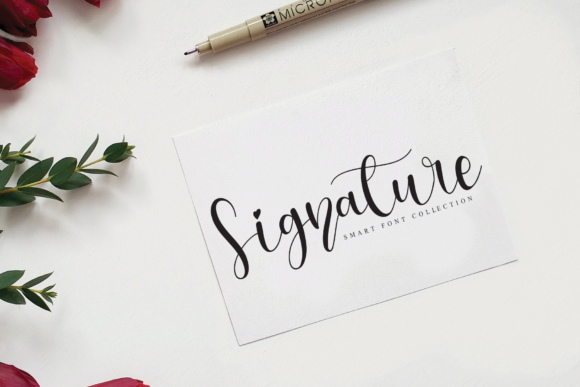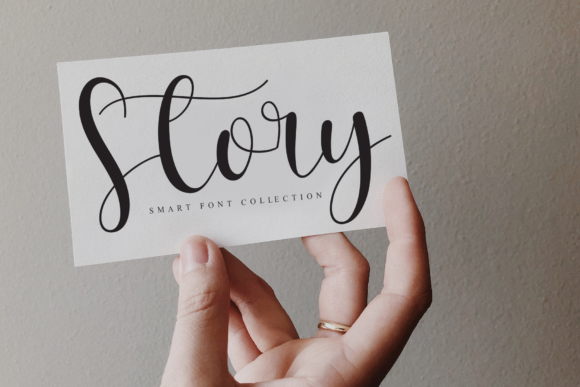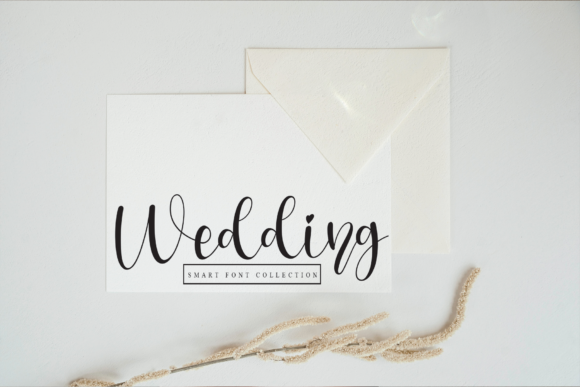
Introducing Anything Font: A Chic and Whimsical Handwritten Font
Are you tired of using the same old fonts in your designs? Look no further than Anything Font, a modern and unique handwritten font that’s sure to add a touch of magic to your creations. With its chic and whimsical style, Anything Font is perfect for designers and crafters looking to add a little something extra to their work.
A Modern and Unique Style
Anything Font is a one-of-a-kind font that’s sure to make your designs stand out. Its modern and unique style is perfect for a variety of projects, from wedding invitations and branding materials to social media graphics and more. The font’s clean lines and delicate curves give it a sophisticated look that’s both elegant and playful.
Immerse Your Designs in a Magical World
With Anything Font, you can transport your designs to a magical world of wonder and enchantment. The font’s whimsical style is perfect for creating designs that are both fun and sophisticated, making it ideal for projects that require a touch of personality and flair. Whether you’re designing for a children’s brand, a fashion label, or a lifestyle company, Anything Font is sure to add a touch of magic to your creations.
Anything Font is a versatile font that’s perfect for designers and crafters of all levels. Whether you’re a professional designer or a DIY crafter, this font is easy to use and adaptable to a variety of projects. With its wide range of applications, Anything Font is sure to become a go-to font in your design arsenal.
Key Features of Anything Font
- Modern and unique style: Anything Font has a fresh and contemporary look that’s sure to make your designs stand out.
- Whimsical and playful: The font’s delicate curves and clean lines give it a sophisticated look that’s both elegant and playful.
- Versatile: Anything Font is perfect for a variety of projects, from wedding invitations and branding materials to social media graphics and more.
Tips for Using Anything Font
Here are a few tips for getting the most out of Anything Font:
- Use it for headlines and titles: Anything Font is perfect for creating eye-catching headlines and titles that are sure to grab attention.
- Pair it with other fonts: Experiment with pairing Anything Font with other fonts to create a unique and interesting look.
- Use it for branding materials: Anything Font is perfect for creating branding materials, such as logos, business cards, and letterheads.
- Have fun with it: Don’t be afraid to experiment and have fun with Anything Font – it’s a versatile font that’s perfect for creative projects.
Anything Font is a chic and whimsical handwritten font that’s sure to add a touch of magic to your designs. With its modern and unique style, versatility, and ease of use, this font is perfect for designers and crafters of all levels. Whether you’re creating wedding invitations, branding materials, or social media graphics, Anything Font is sure to become a go-to font in your design arsenal.